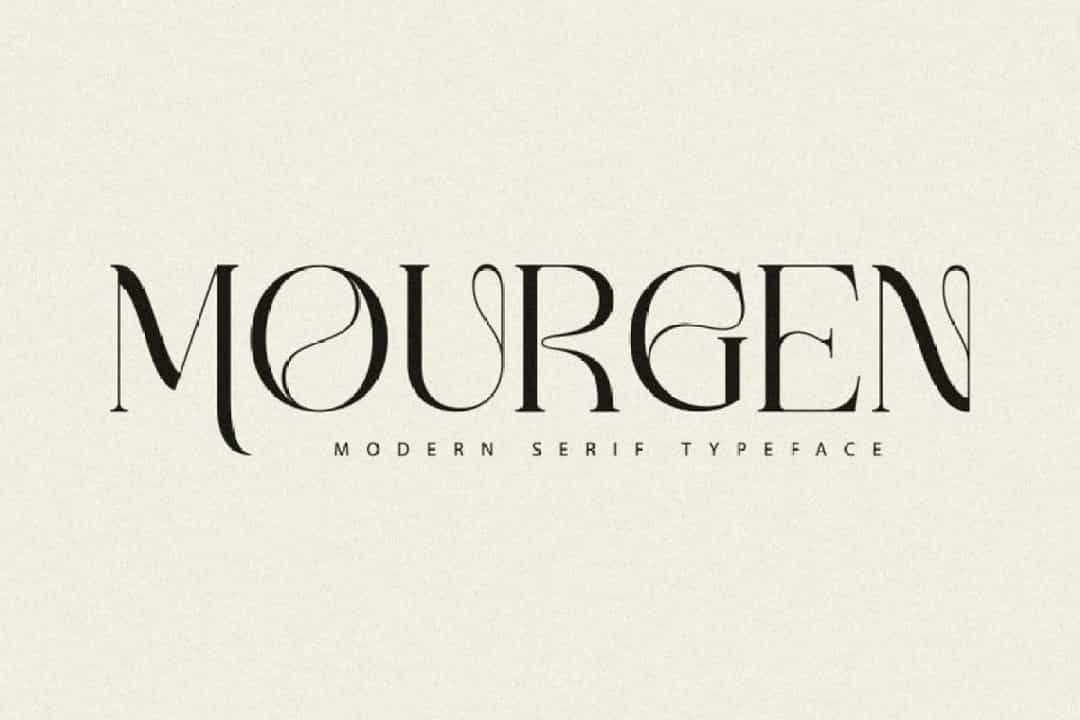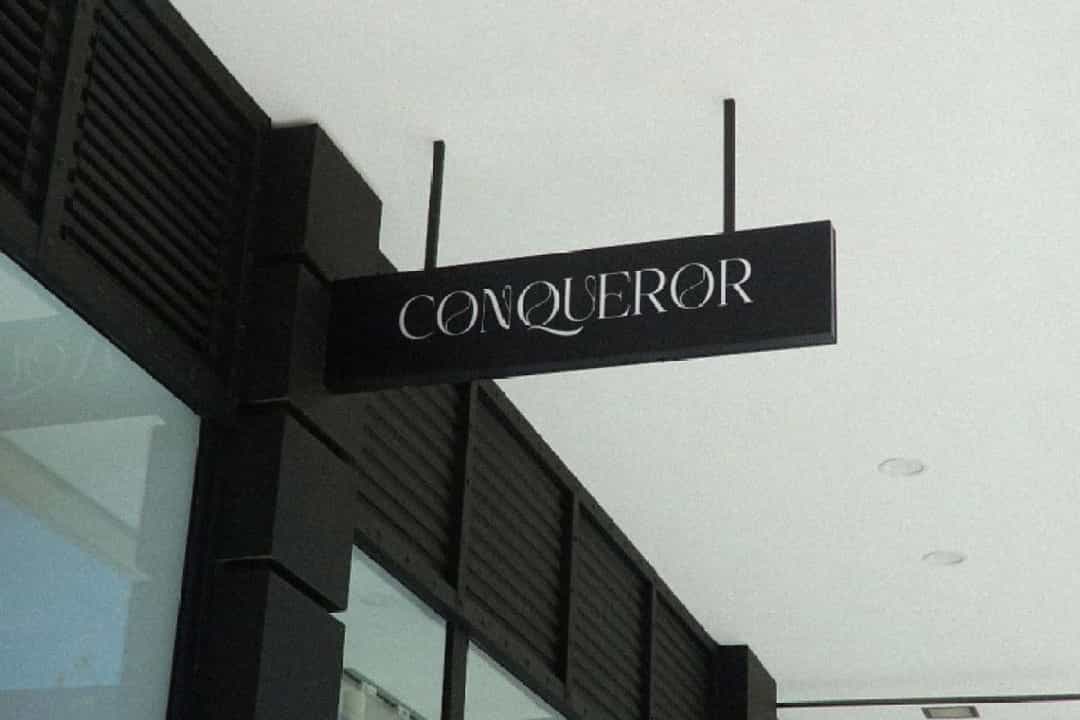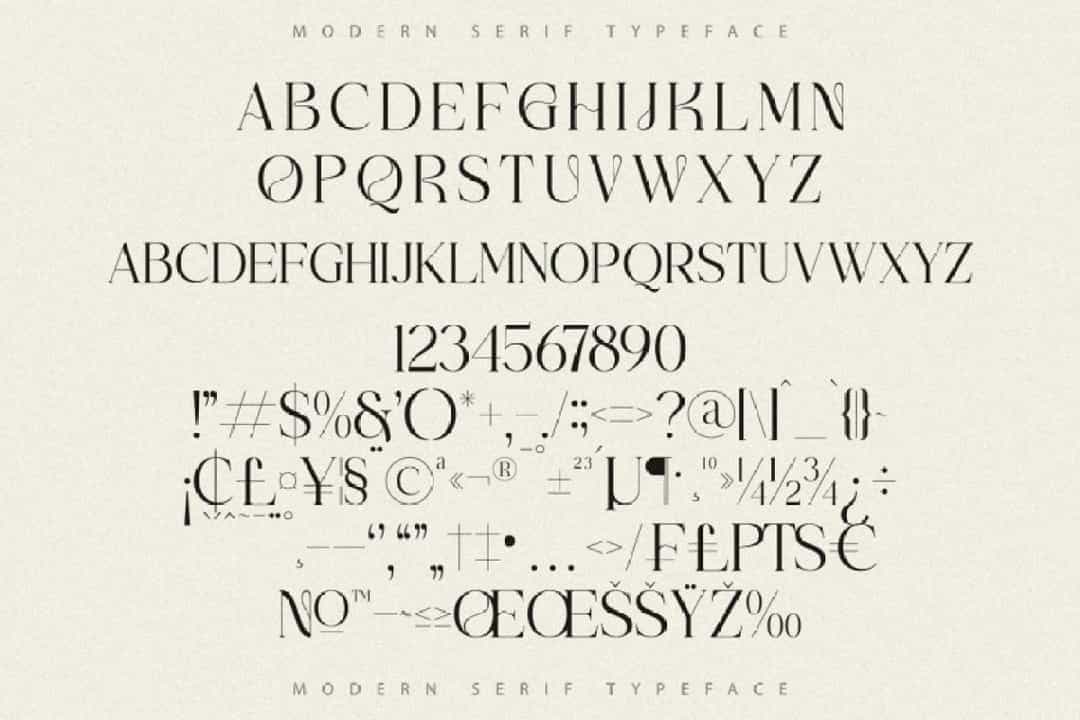
Mourgen can be described as an elegant and modern serif typeface with its distinct style and contemporary appearance. It makes an ideal font to create classy logos, movie or book titles, fashion label magazine articles, clothing label letters, lettering quotes or quotes of any sort.